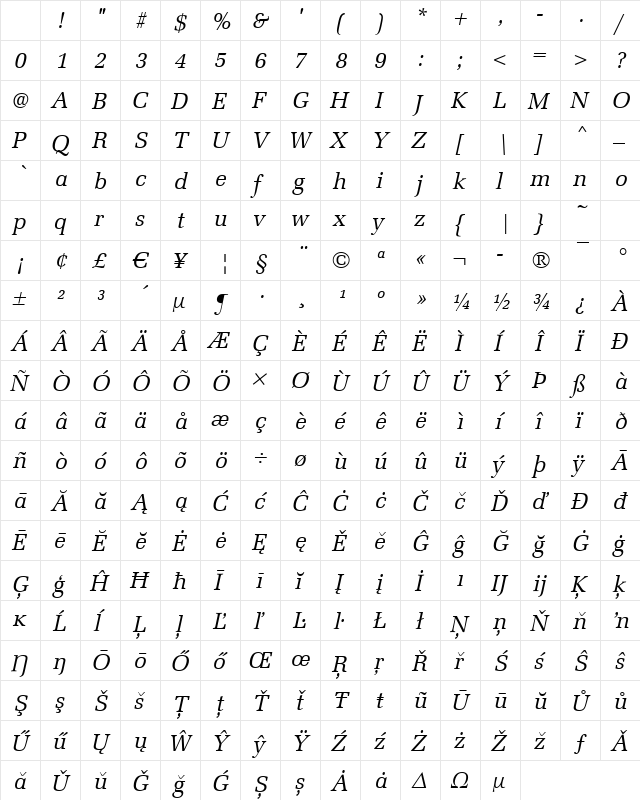
Marseille is a composed and adaptable typeface that performs quietly and consistently across a wide range of design contexts. The slanted form adds forward momentum and visual energy.
Pro Tip: Use Marseille for emphasis, pull quotes, and subheadings where its slanted energy can add rhythm to the layout.